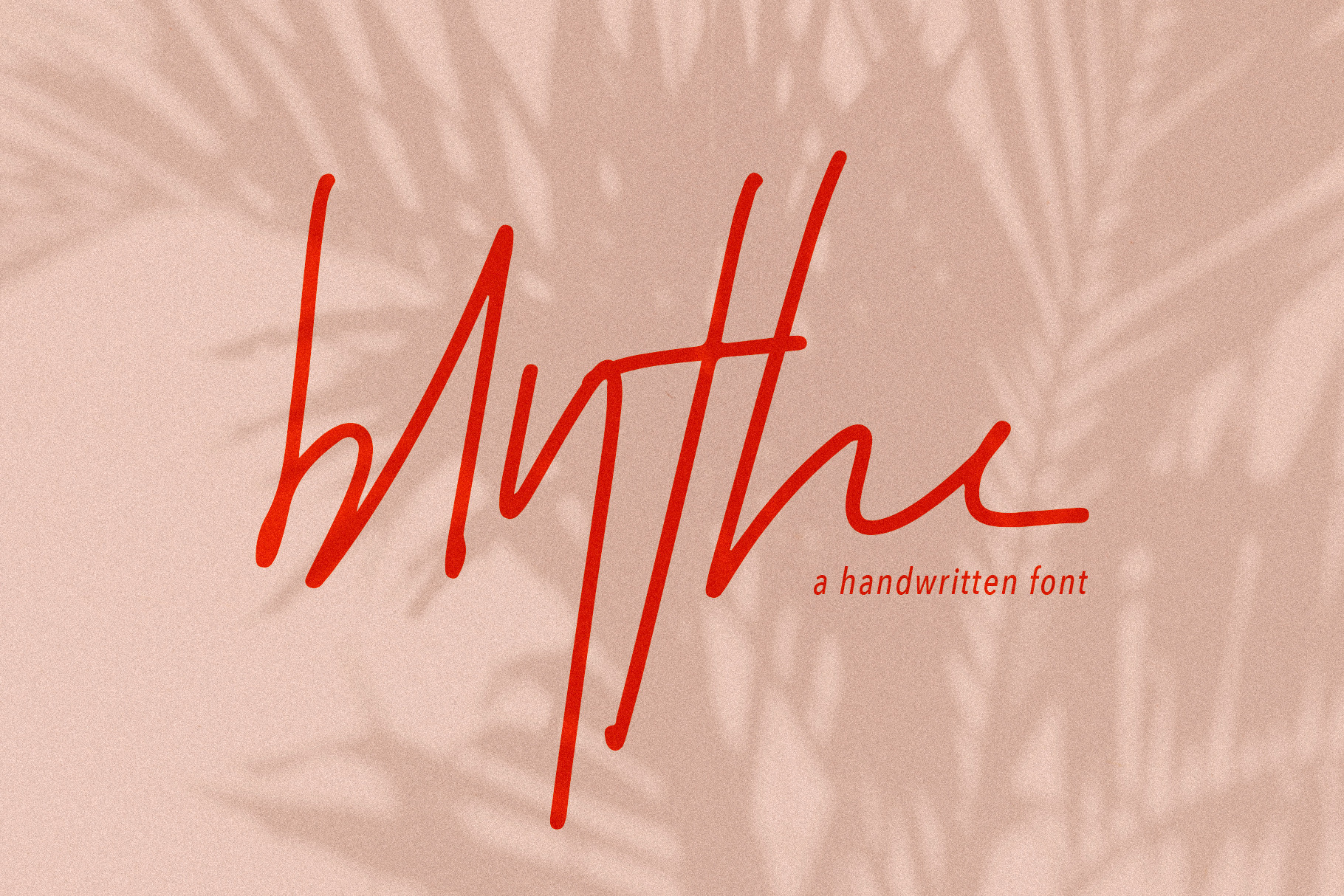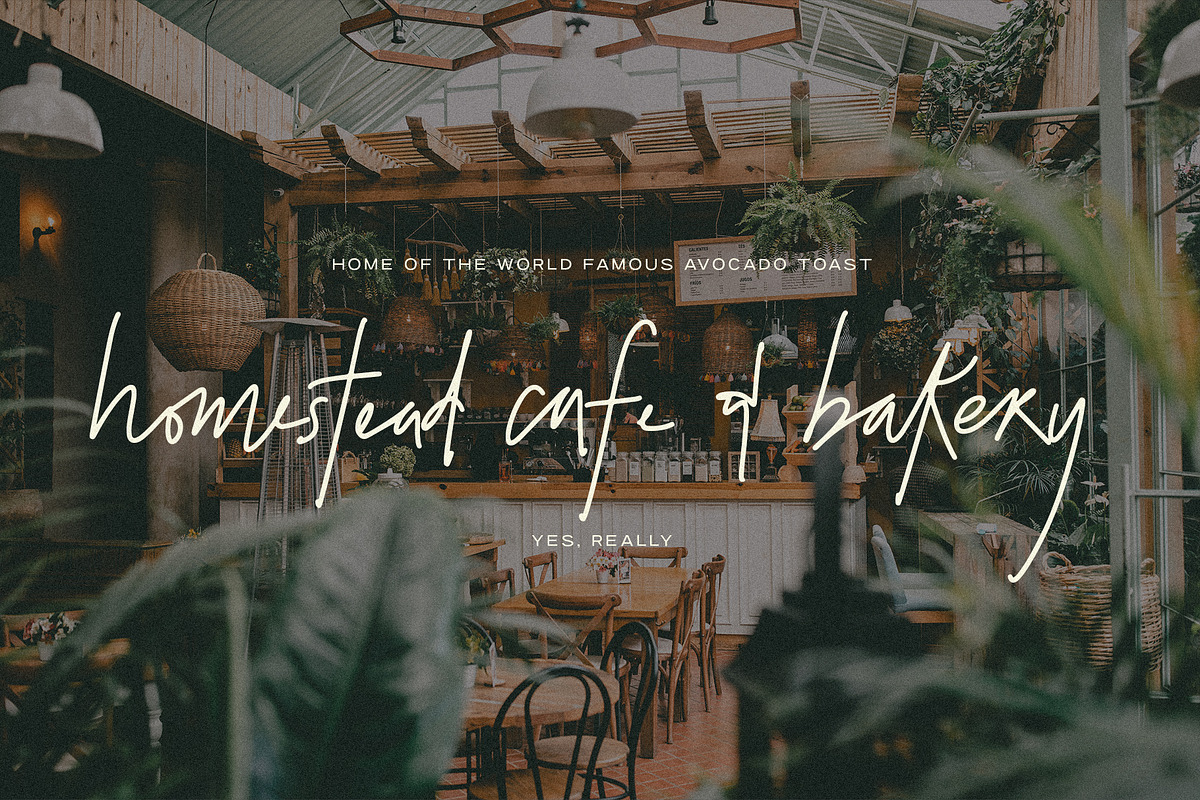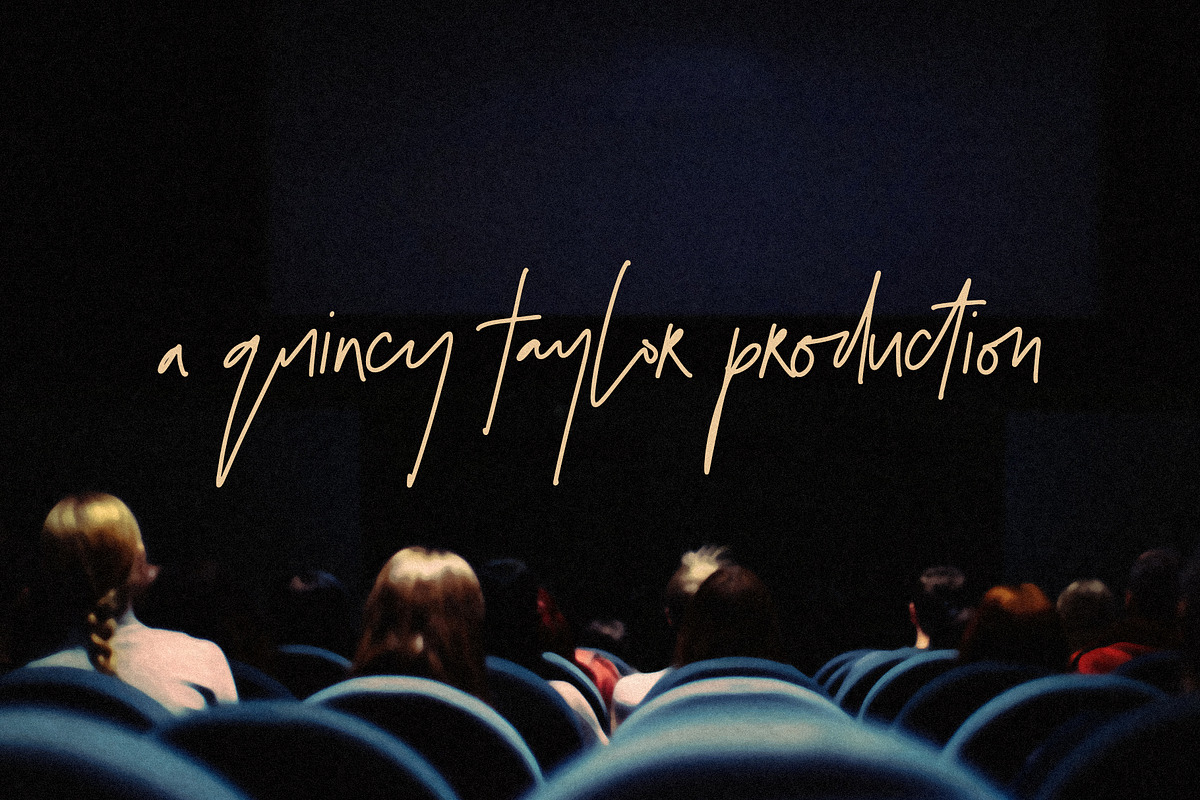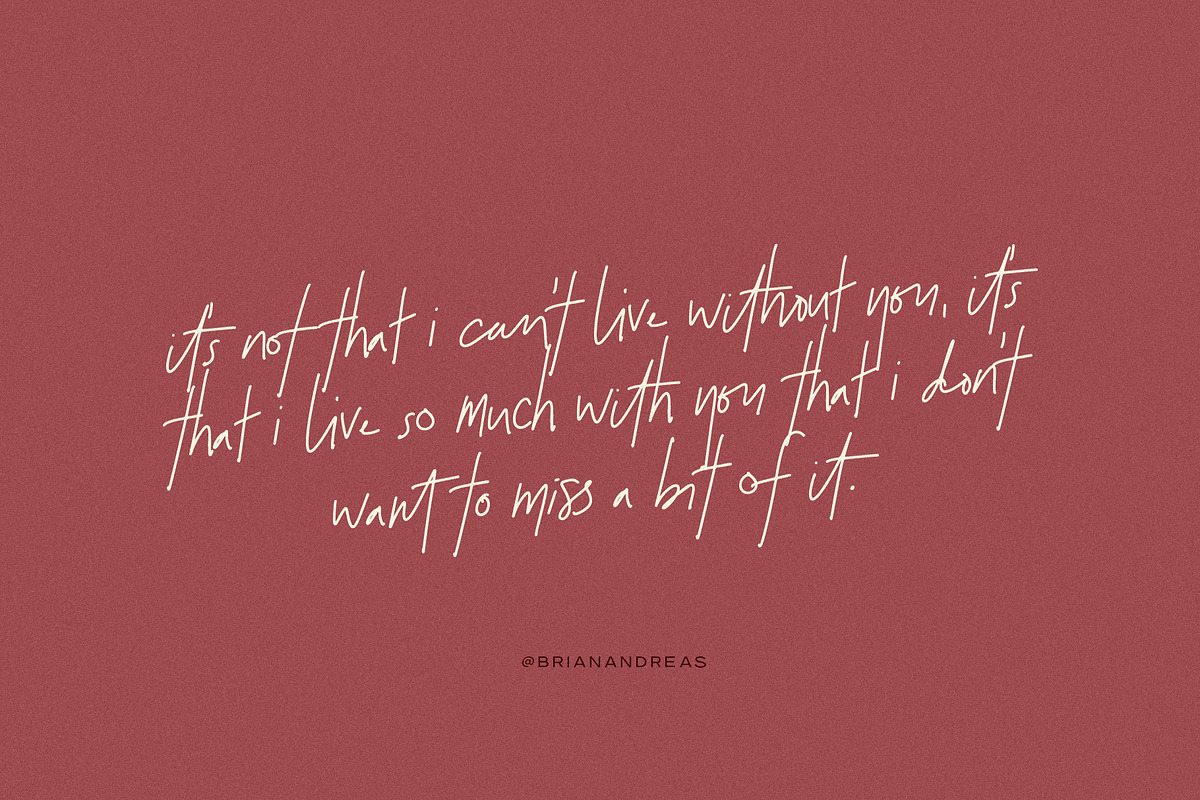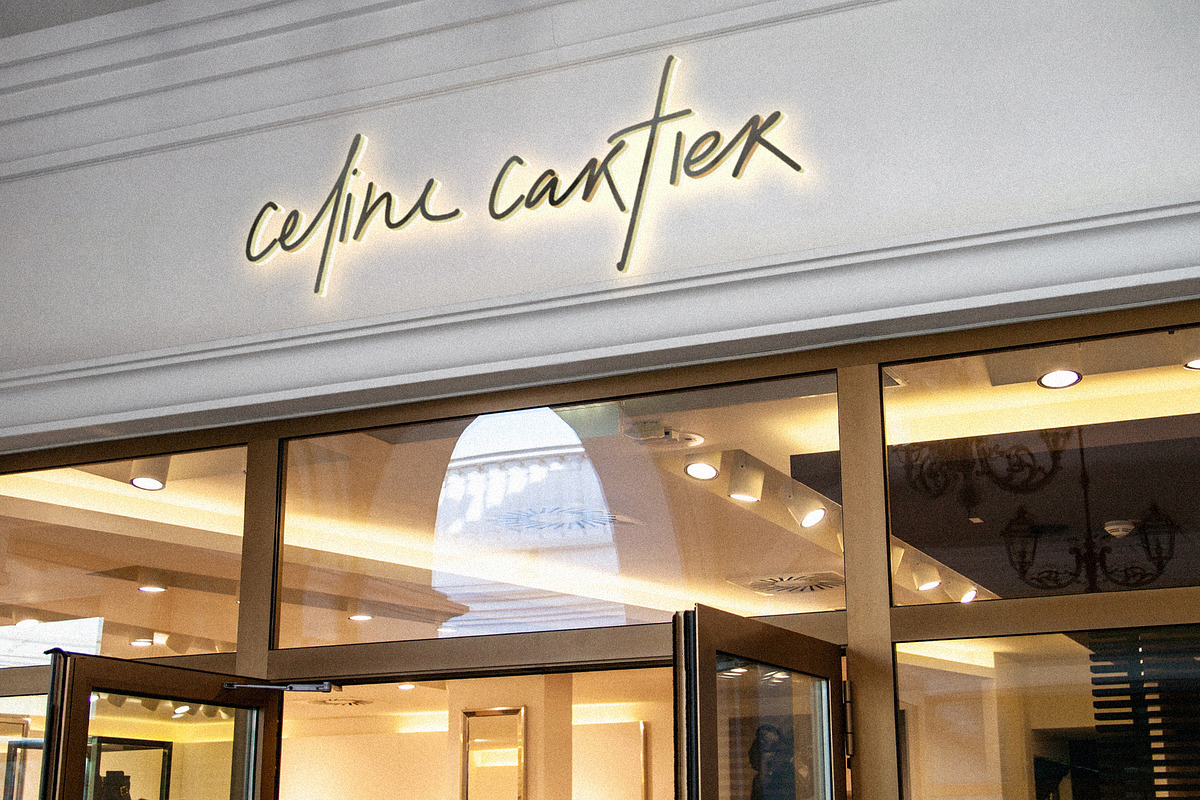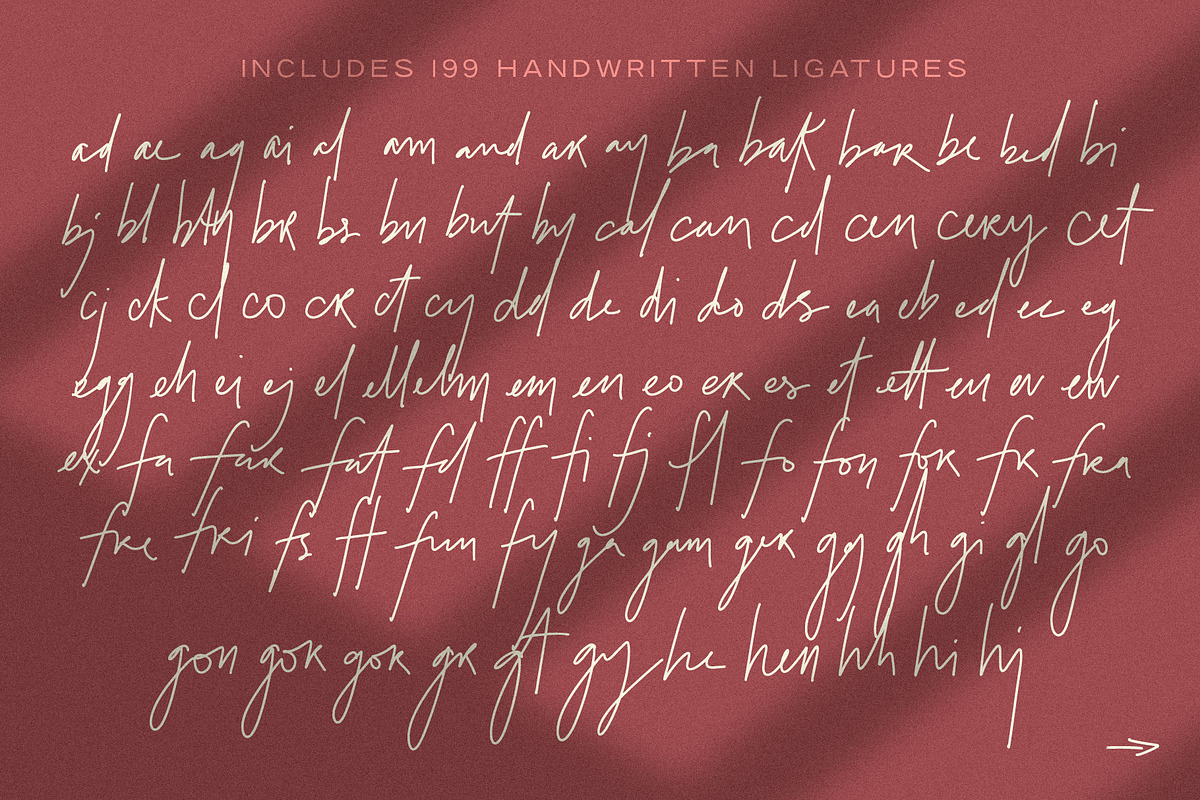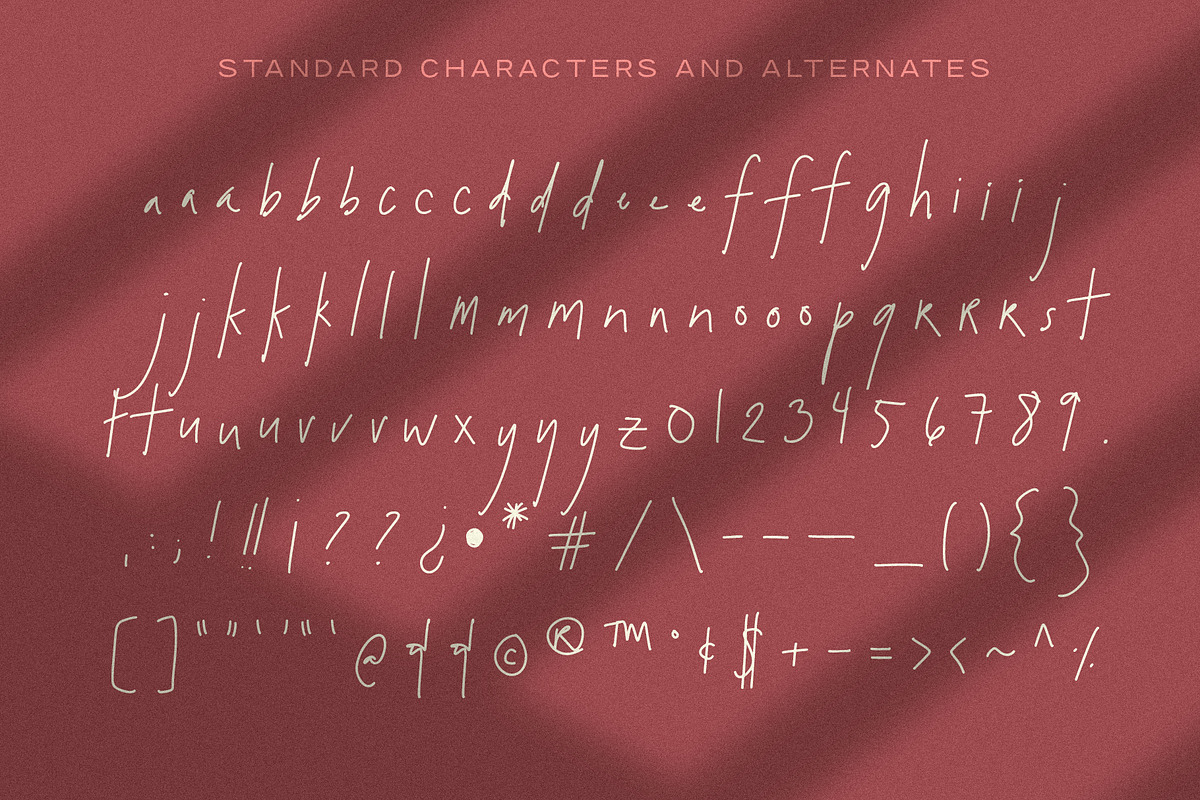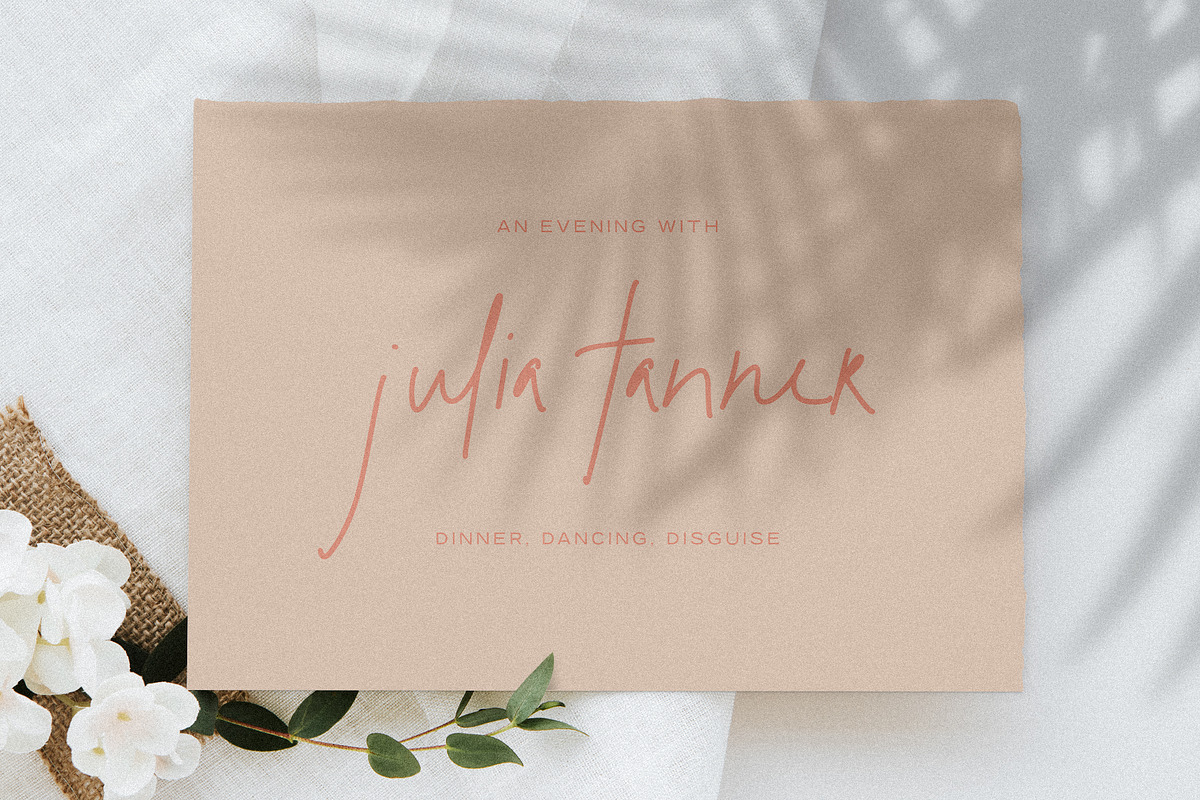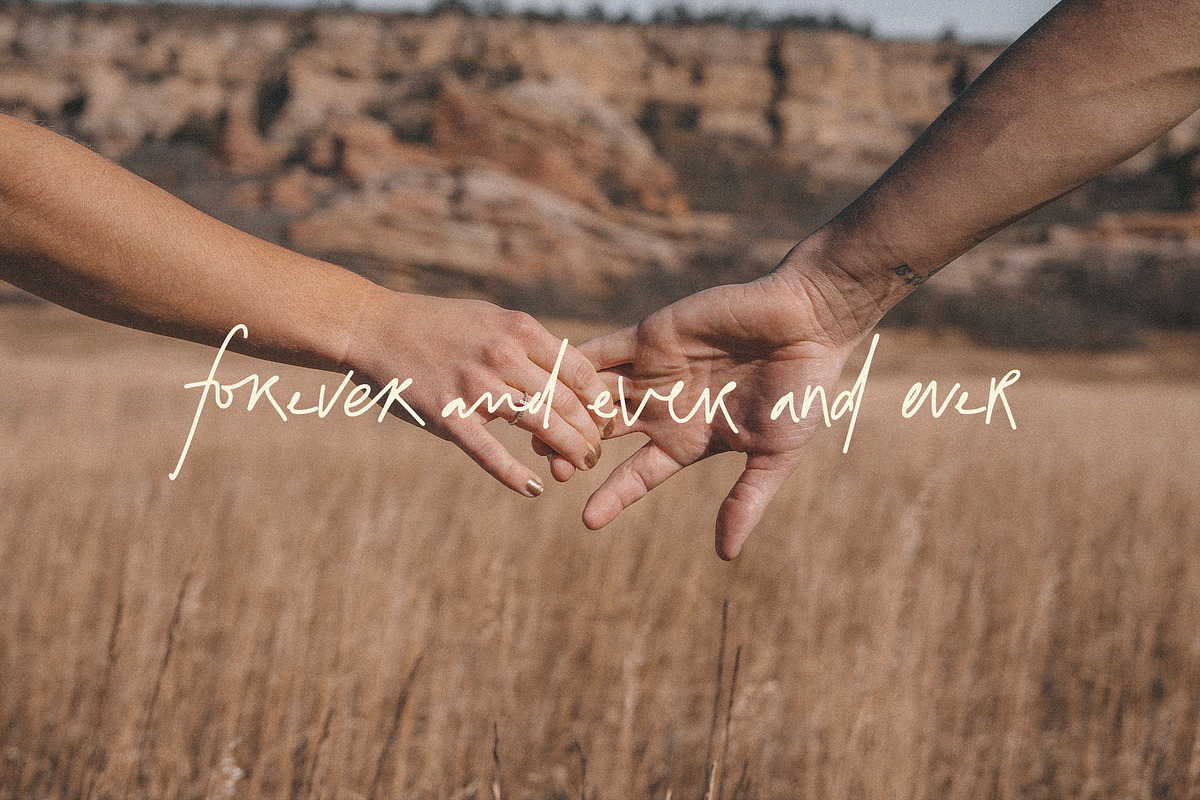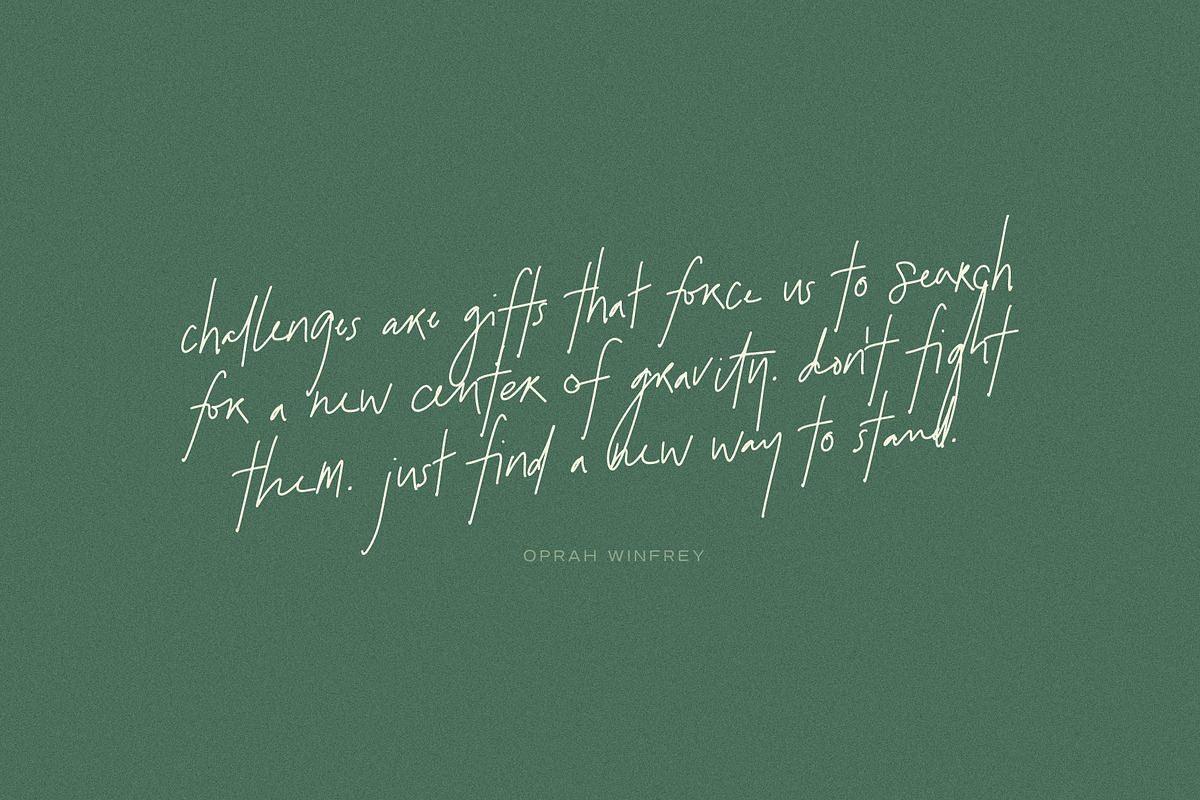
blythe | genuine handwritten font
blythe is a handwritten, lowercase, semi-script font made by and named after yours truly. It's super authentic and was designed to feel like true messy, funky handwriting (because it literally is!).
With 199 ligatures and 2 alternate characters for nearly every letter, each word and sentence will feel completely unique — just like true handwriting.
- 199 ligatures to help make your type look as handwritten as possible